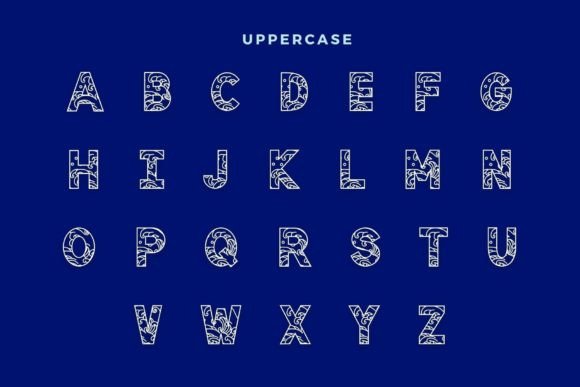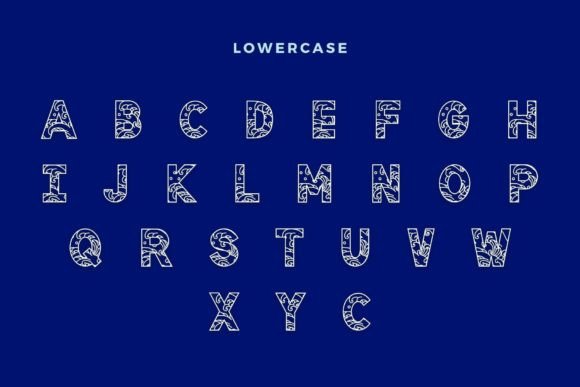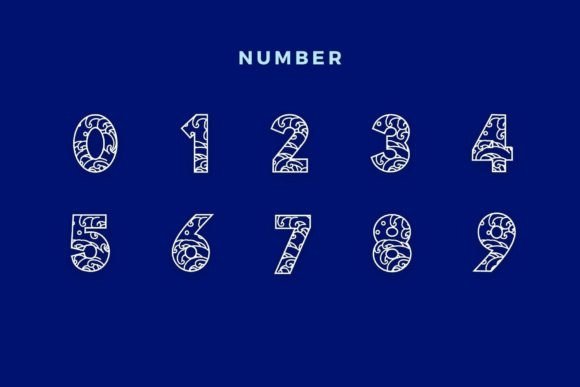
Introduction to Double Wave Font
Double Wave is a cute and funny decorative font.
You can use it for various projects such as blog posts, logos, branding, ads, invitations, greeting cards, planners, photo albums, decorations, and much more Add it to any of your designs, and enjoy the results.
Double Wave Font offers exceptional quality and versatility, making it a valuable addition to your design toolkit. Whether you’re creating for personal projects or commercial use, Double Wave Font delivers professional results.